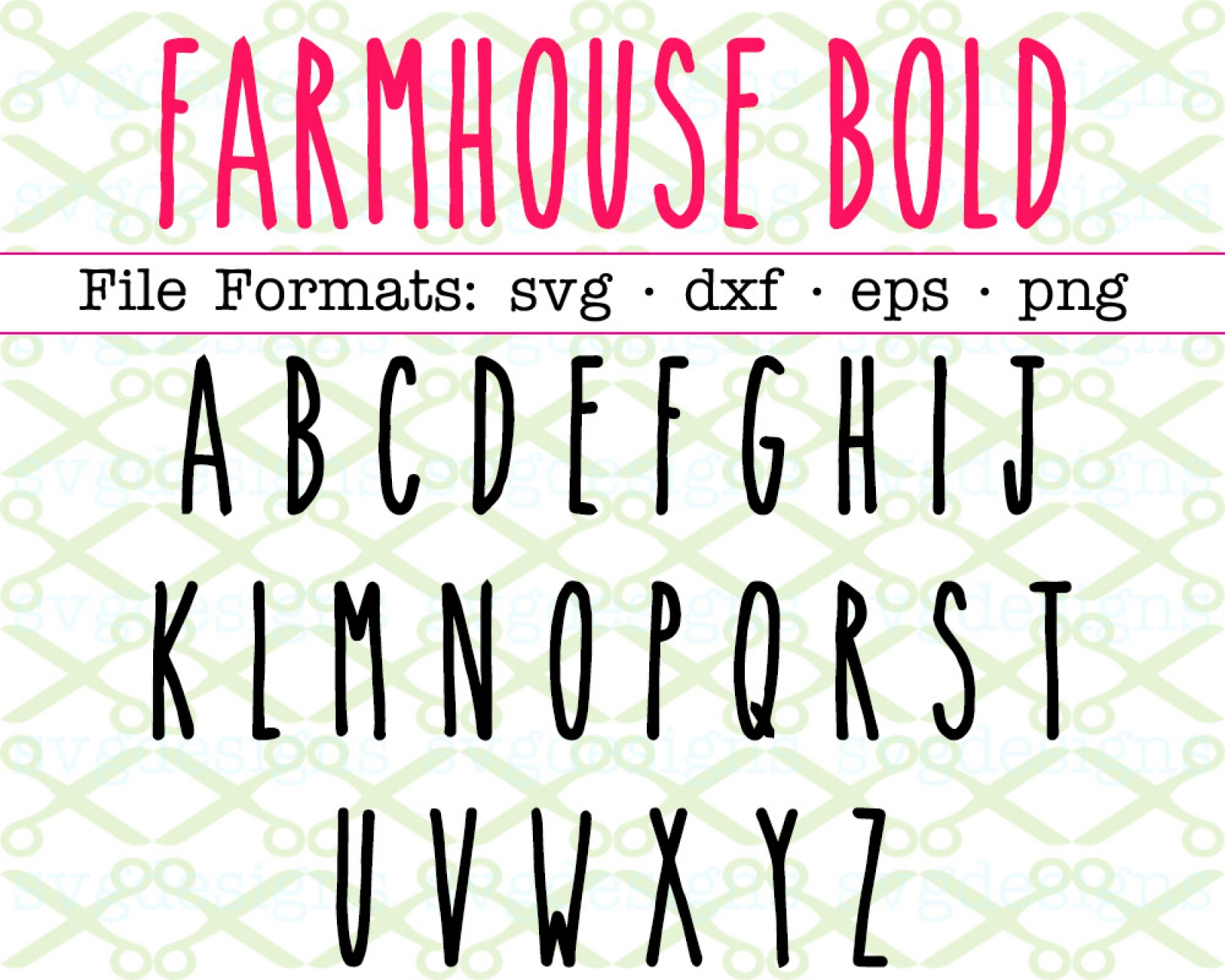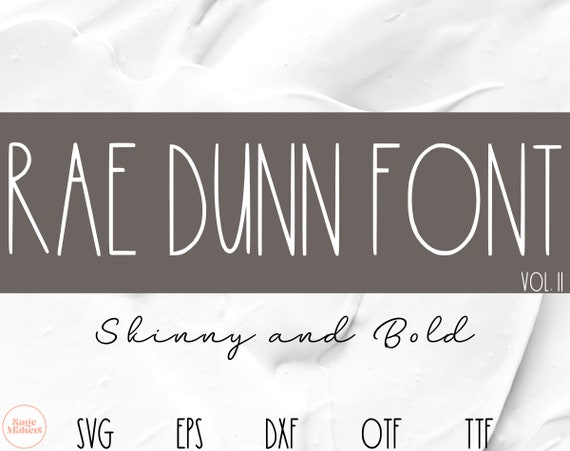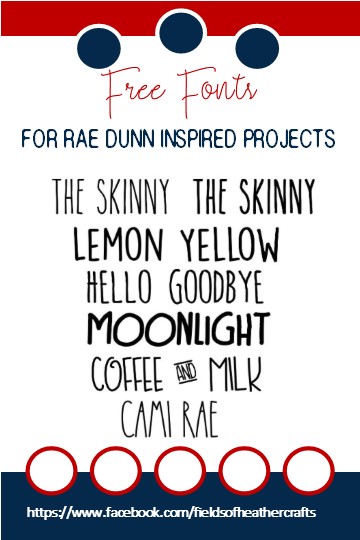
Cricut font rae dunn. Rae dunn font cricut. Perfect for wood signs printable wall art more. Sure the streets of new york city look a lot different than they did pre covid but spending a few days here in. Here are 7 free rae dunn inspired font alternatives that you can use to make your o.
Jun 24 2019 rae dunn font similar dupes for projects. Cursive script calligraphy tall skinny handwritten and sign lettering fonts. Get your joanna gaines or rae dunn on with these free farmhouse fonts for cricut andor silhouette. You may like these posts.
With this purchase you will receive a zipped folder containing these images in svg. One is called stem print i believe. The font used by rae dunn in her designs is basically a handwritten typeface the skinny font. Below you can find a free collection of rae dunn inspired fonts.
Problem solved and we are rae dunning again. But rae got too much success due to her dishes and coffee mugs. Fonts for rae dunn inspired products with cricut by heather truckenmiller march 02 2019 1 comments. The rae dunn is a female artist and designer which belongs to california and resides in san francisco.